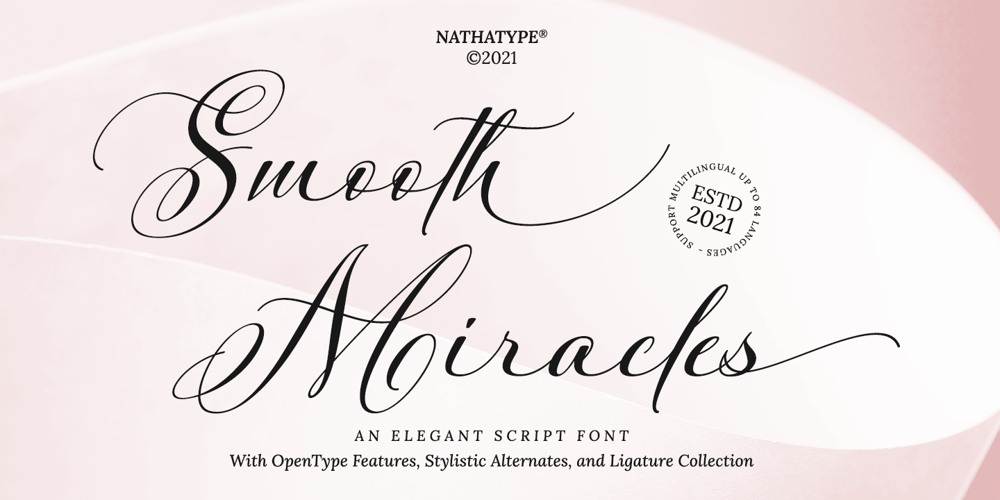
Smooth Miracles Font Family was designed by Donis Miftahudin and published by Nathatype. Smooth Miracles contains 1 styles and family package options. Are you ready to make your branding stand out? Do you dream of creating headings that stand out and inspire creativity, imagination, modernity, and endless fun? Looking for an elegant and stylish font? We’ve got what you want.Smooth Miracles-A Script FontSmooth Miracles is a font of choice for writing things that go beyond words. This font type is designed with high detail to deliver stylish elegance. So, it can be said, the character of the change is very beautiful, a kind of classical decorative copper script. Smooth Miracles presents alternative variants of most letters, binders, and many calligraphy tips, ideal for elegant labels, high-end packaging, stationery, and compositions for certain brands, beautiful titling, verses, letters and short texts, which are intended to be read only with the eyes or intended to whisper into someone’s ear.Our font always includes various language support to make your branding reach a global audience. Features: Ligatures Stylistic Sets Swashes PUA Encoded Numerals and Punctuation Thank you for downloading premium fonts from Natha Studio